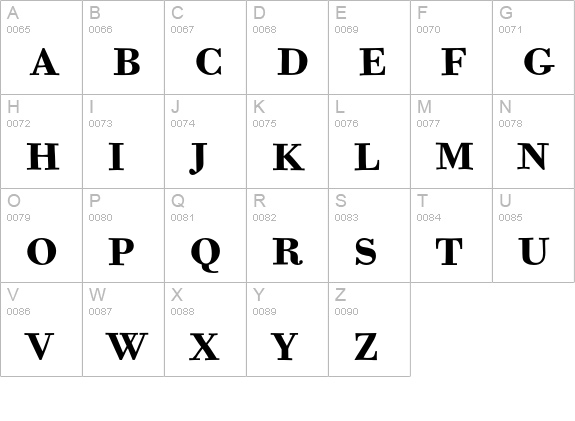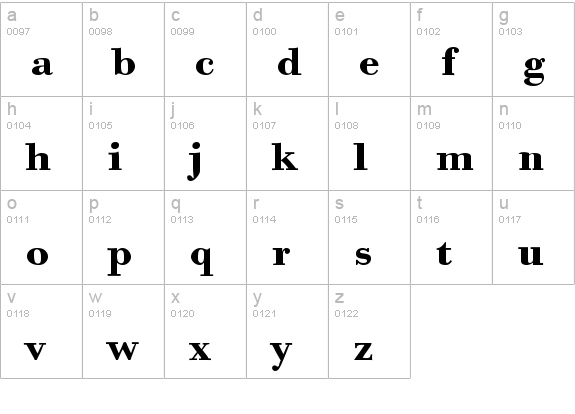
BodoniSixEF-Bold Font Details
BodoniSixEF-Bold is a strong, high-contrast variant in the BodoniSixEF typeface family \xE2\x80\x94 well suited to headlines, attention-grabbing titles, and strong calls-to-action.
BodoniSixEF-Bold is a striking and elegant font that exudes sophistication and modernity. With its bold weight and distinctive serifs, this typeface commands attention and conveys a sense of confidence and style. The clean lines and sharp angles of BodoniSixEF-Bold make it perfect for headlines, titles, and other display purposes where you want to make a bold statement. What's even better is that BodoniSixEF-Bold is available for free download at FontsMarket.com. This means you can easily access this beautiful font and use it in your projects without any cost. Whether you're designing a poster, creating a logo, or working on a website, BodoniSixEF-Bold is a versatile and eye-catching choice that will elevate your design to the next level. Experience the beauty and impact of BodoniSixEF-Bold today by downloading it for free from FontsMarket.com.